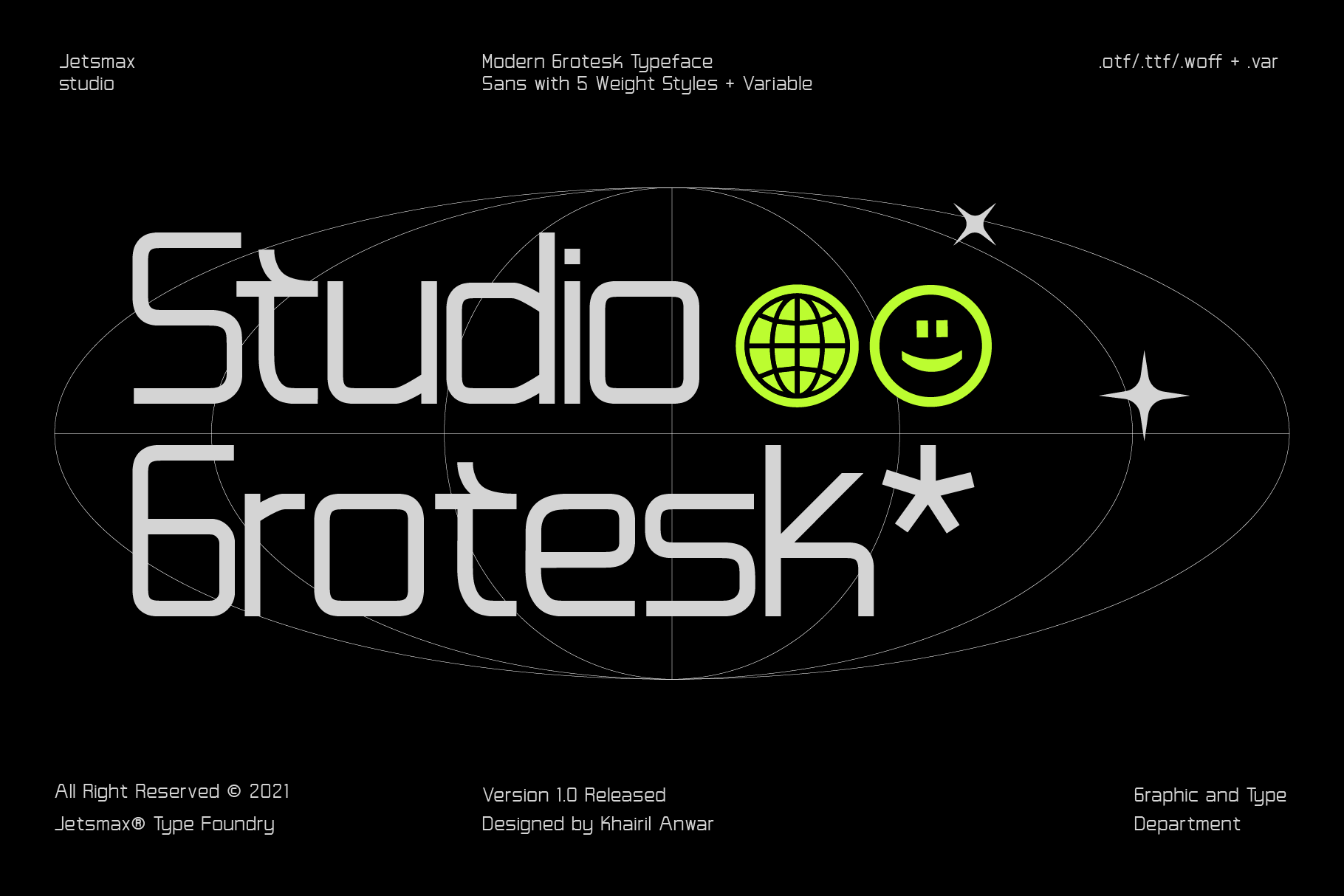
Studio Grotesk - Modern Typeface
Studio Grotesk is a modern sans typeface with a futuristic touch. This multi-purpose typeface will grab reader's attention with its stylish and neat design. With over 500 Glyphs, five styles and a wide range of weights its a timeless workhorse for many possible application from branding to editorial.
- Modern and Text Friendly